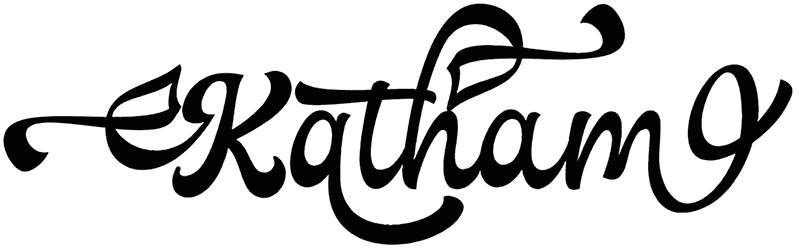
Katham Font
The Katham is an exciting script font that seems memorable to your audience. This old-school font has an elegant style and can be helpful for several cases. For instance, you can use the script font in posters, flyers, and commercial packaging; however, it does not support numbers.
This retro font’s letters have a playful form, sending a friendly vibe, and by pressing the download button right away, you may draw attention to your lettering and beat out your competitors.